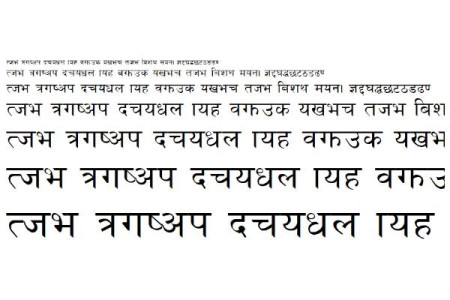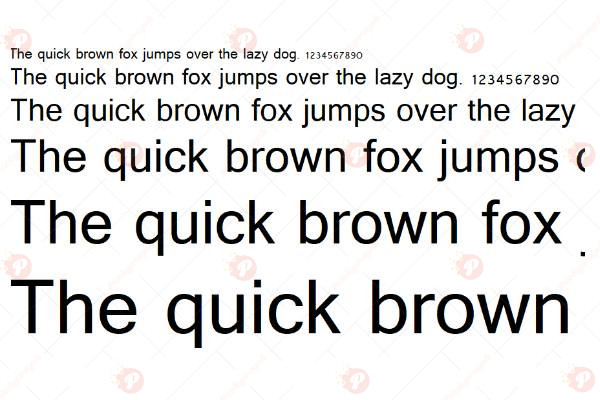
The Mangal Regular Font is a Unicode-based Devanagari typeface widely used for Hindi, Marathi, Nepali, and Sanskrit text. Known for its clean, readable, and professional design, this font is perfect for documents, eBooks, newspapers, educational materials, websites, cultural projects, and devotional content.
As the default Hindi font in many systems, Mangal Regular is one of the most reliable and versatile choices for both print and digital projects, ensuring accurate text rendering across platforms.
Script: Devanagari (Hindi, Sanskrit, Marathi, Nepali)
Style: Regular / Unicode / Standard Typeface
Perfect for: Documents, Books, Websites, Festival Posters, Invitations, Educational & Religious Projects
Ensure clarity, readability, and authenticity in your work with the Mangal Regular Font.